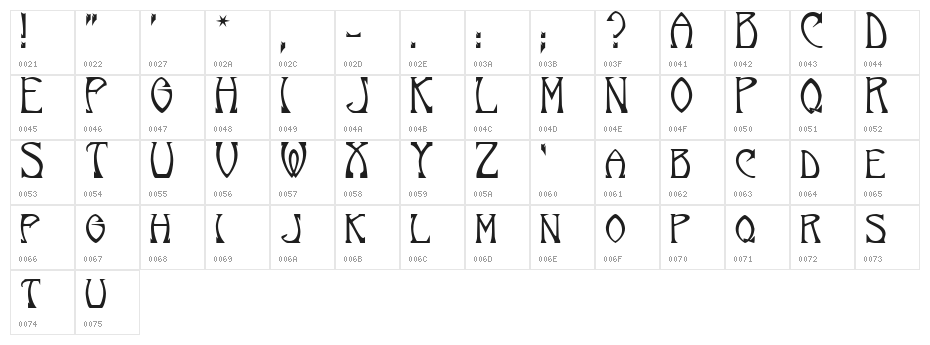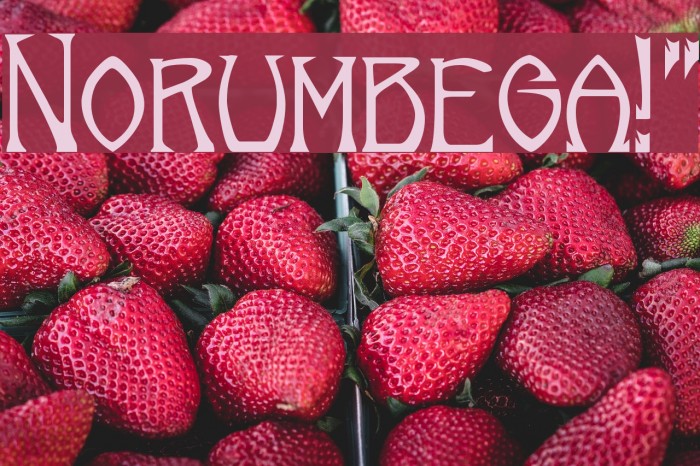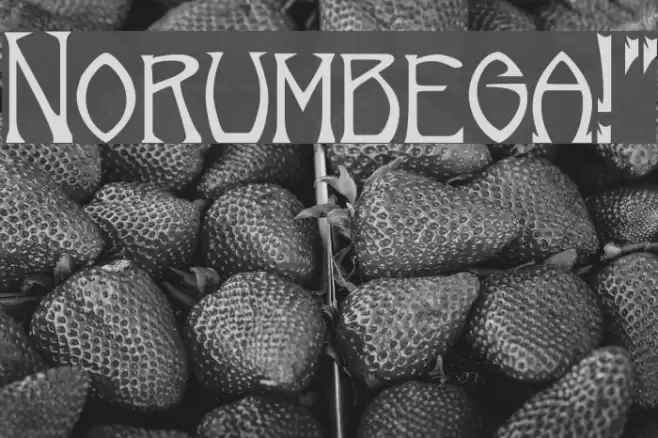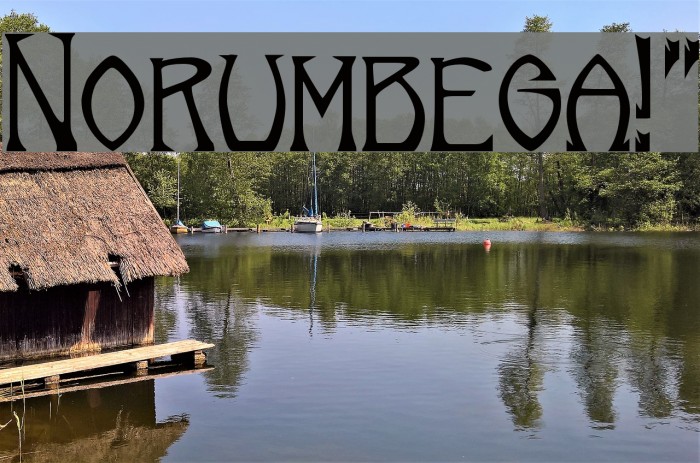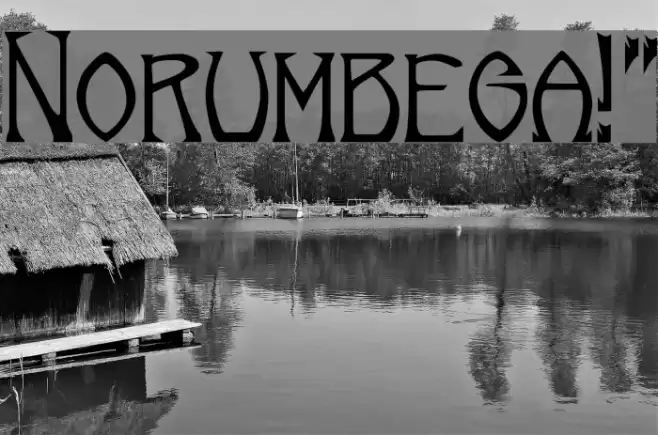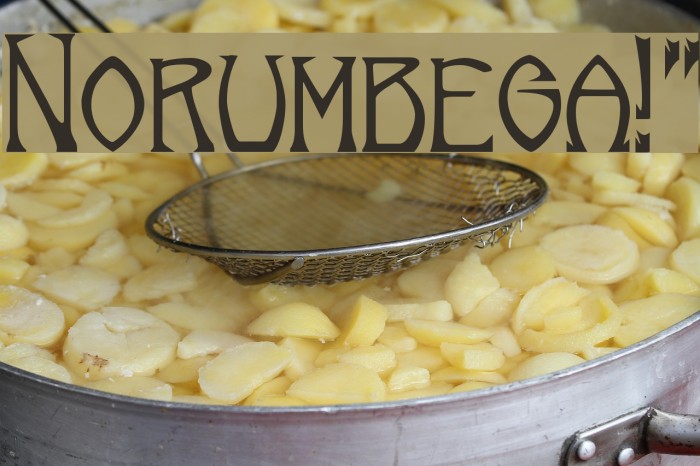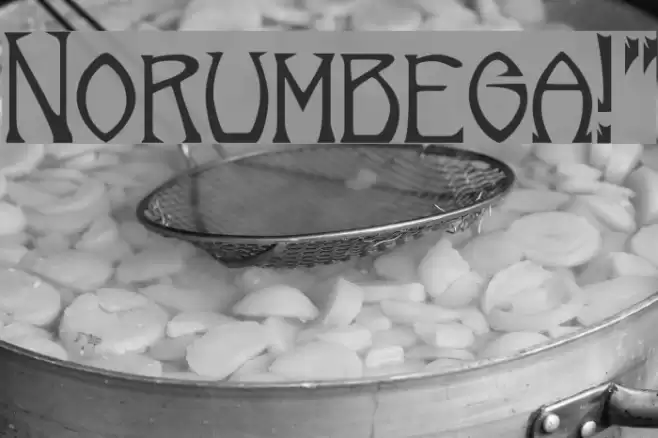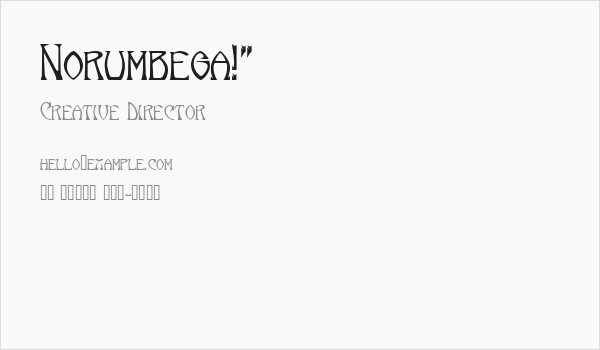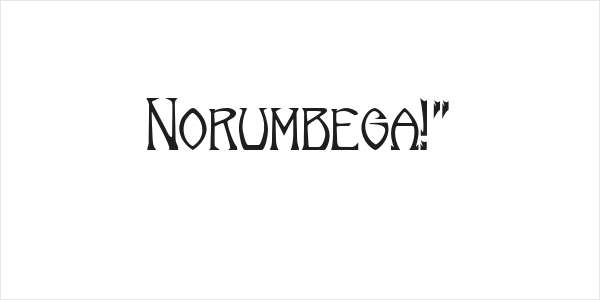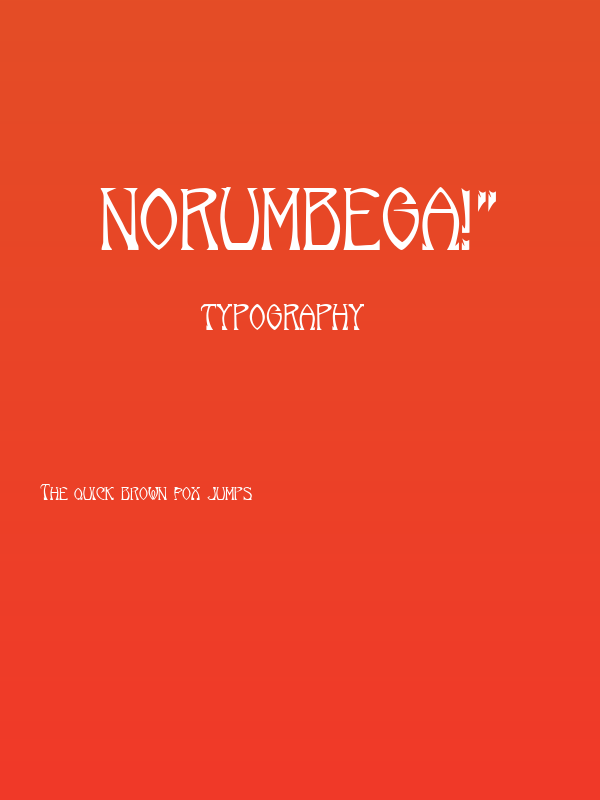
Norumbega!" Font
Norumbega!" Description
This font features a unique and artistic design, characterized by its sharp, angular edges and intricate detailing. The uppercase letters exhibit a bold and striking appearance, with a medieval or fantasy-inspired aesthetic. The lowercase letters maintain the same stylistic elements, ensuring consistency throughout. The numbers and special characters are equally ornate, adding to the font's decorative appeal. This font's distinct style makes it stand out, ideal for projects that require a touch of elegance and creativity.
| Proposed Projects | Ideal for fantasy-themed projects, book covers, posters, and branding that requires a decorative touch. |